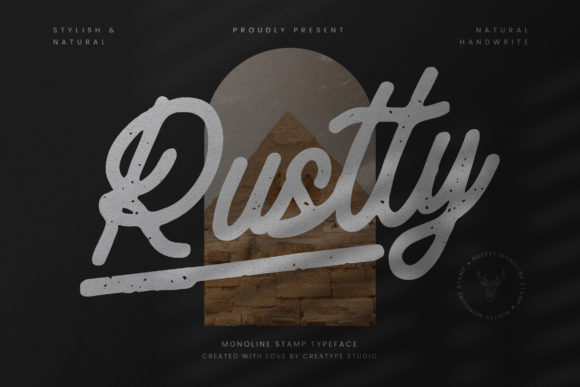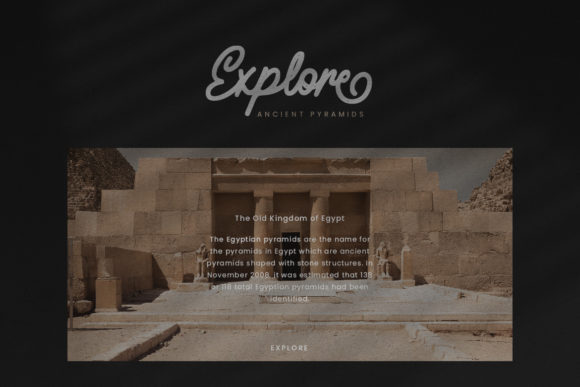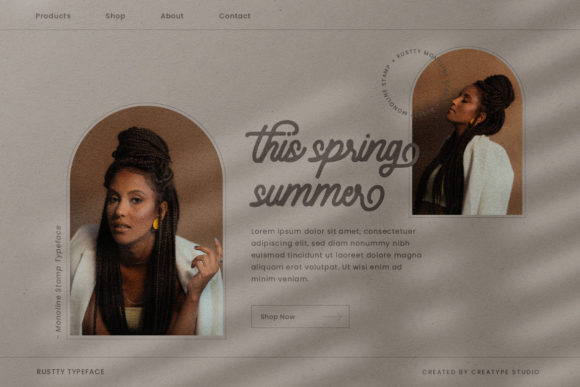
About Rustty Font
Rustty is a vintage styled, paint brushed handwritten font. It is the best choice for creating eye catching logos, branding and quotes. Rustty is PUA encoded which means you can access all of the glyphs and swashes with ease!